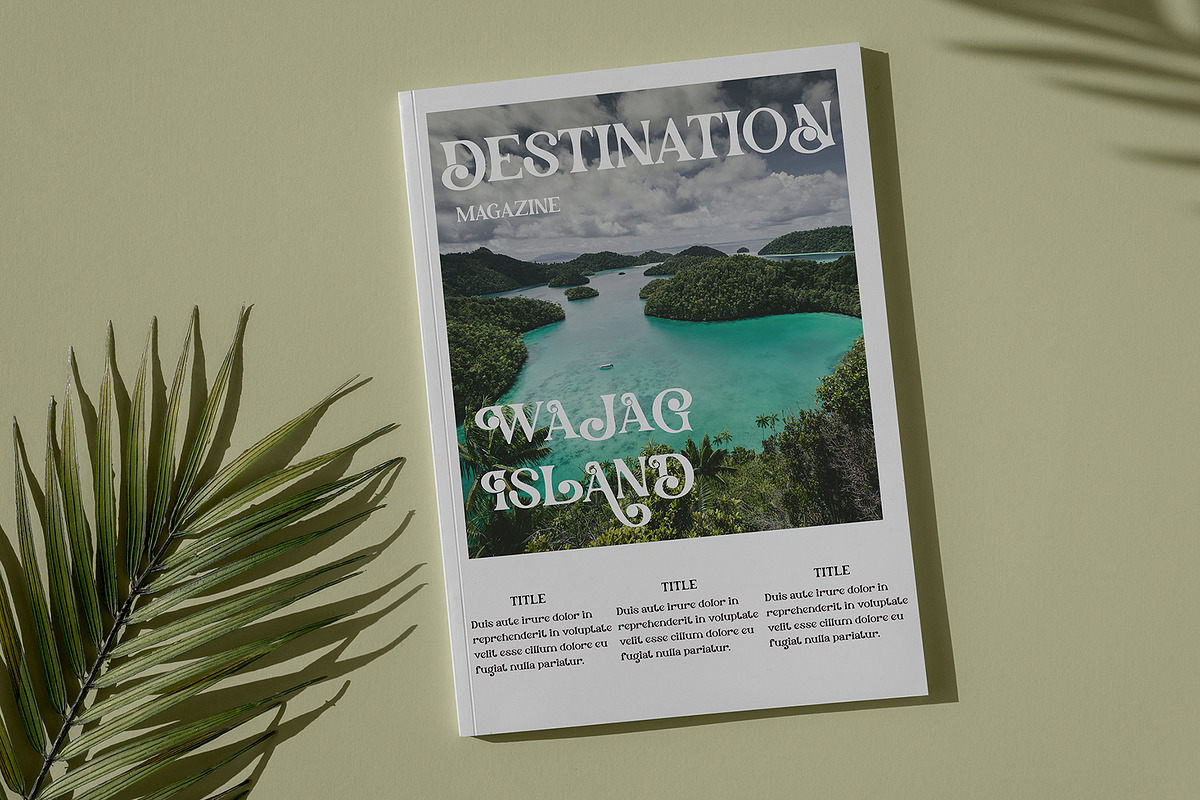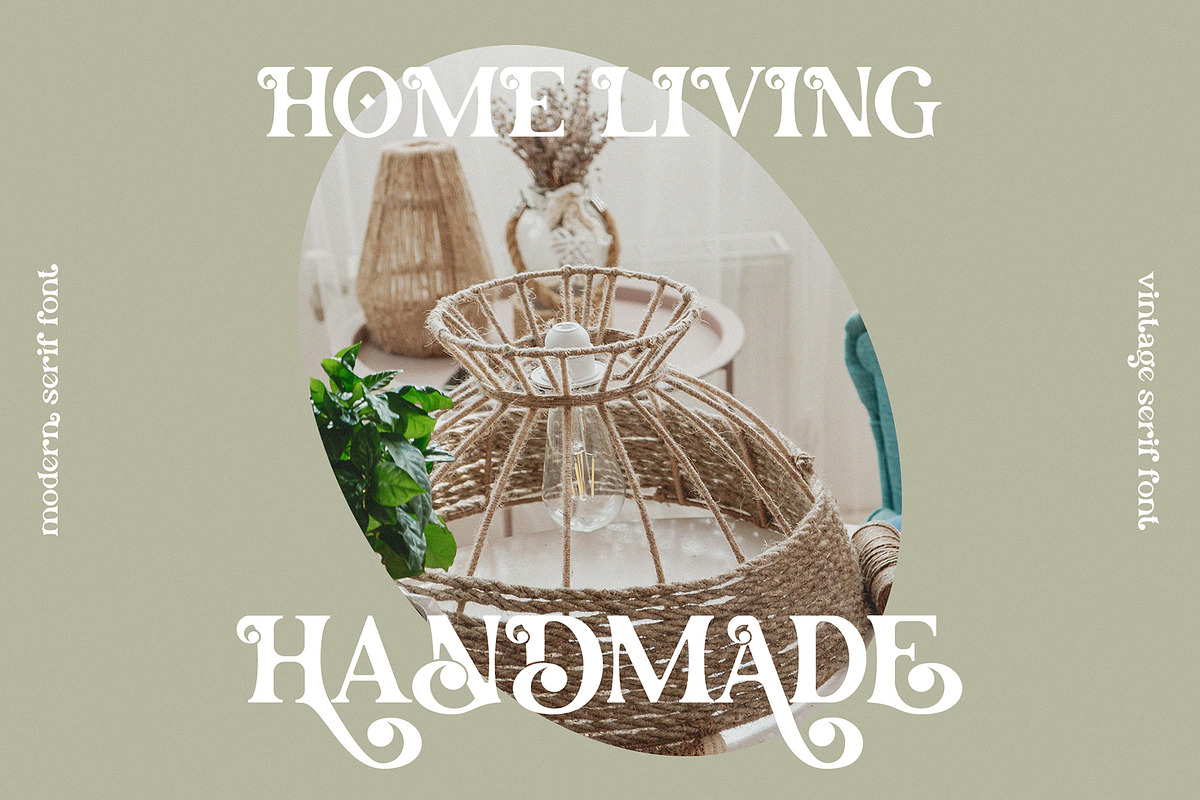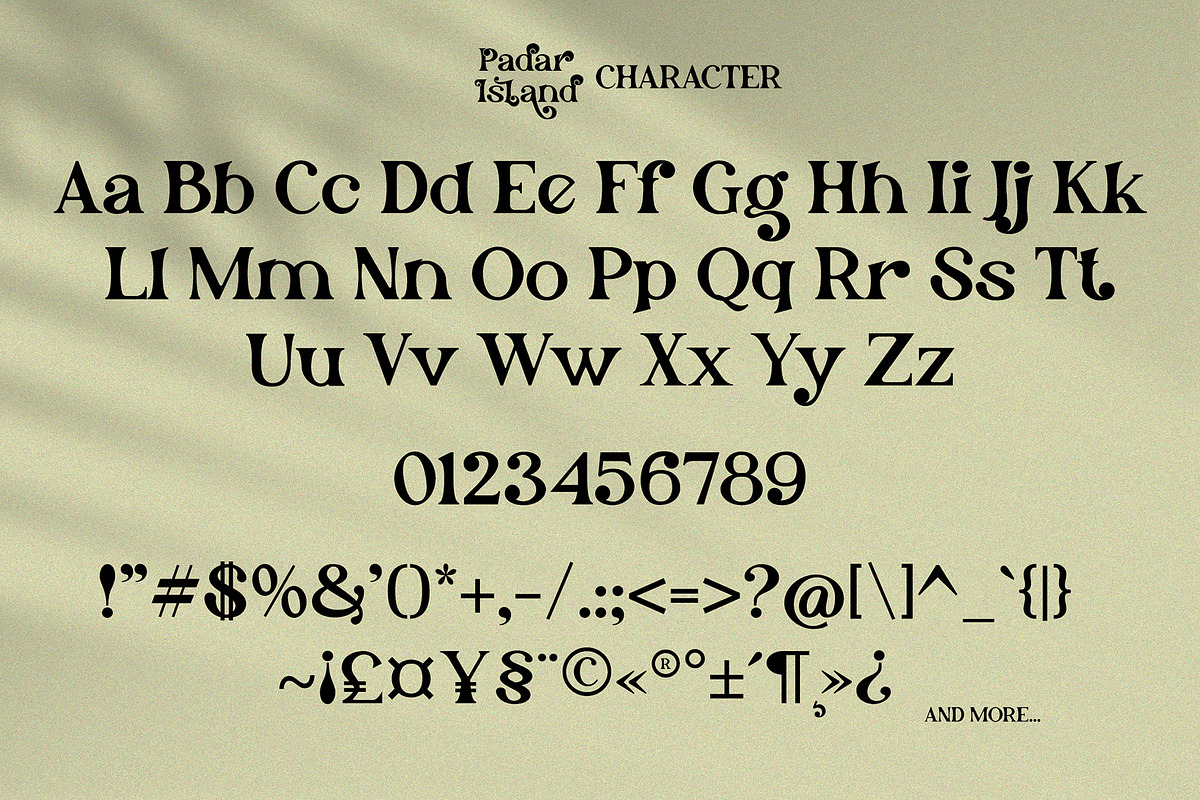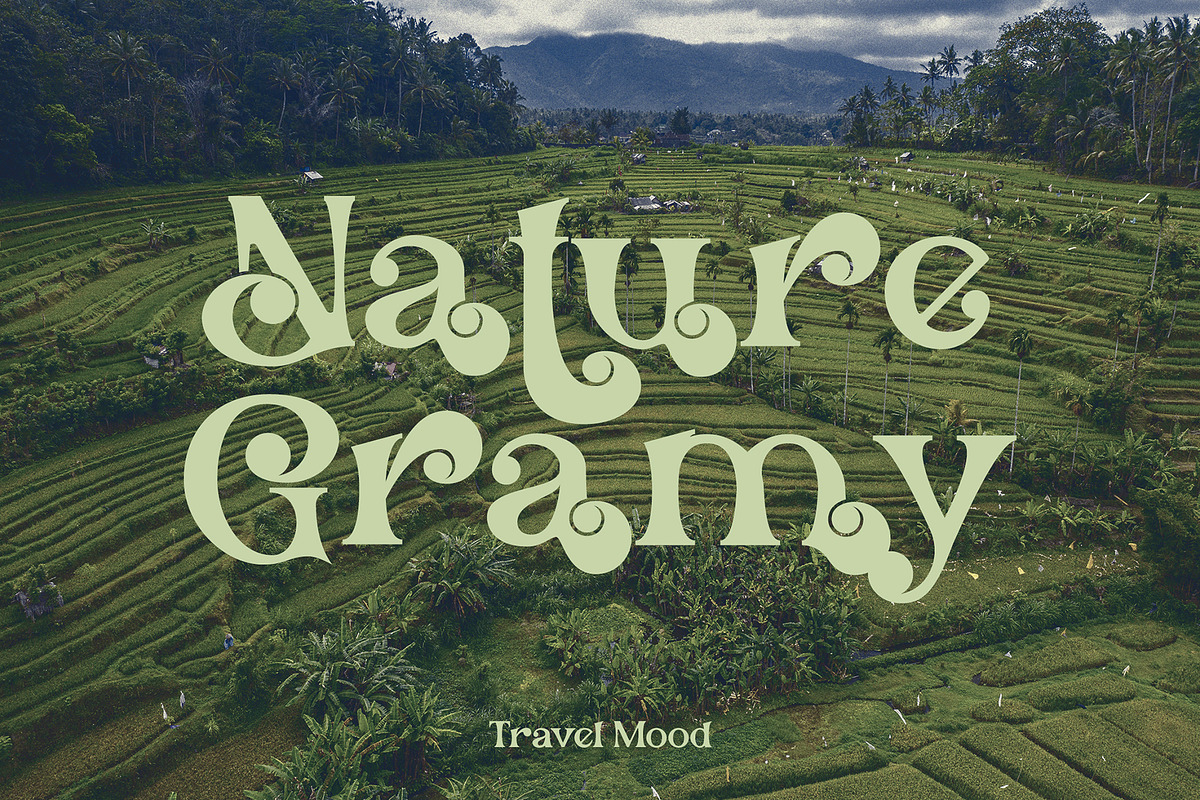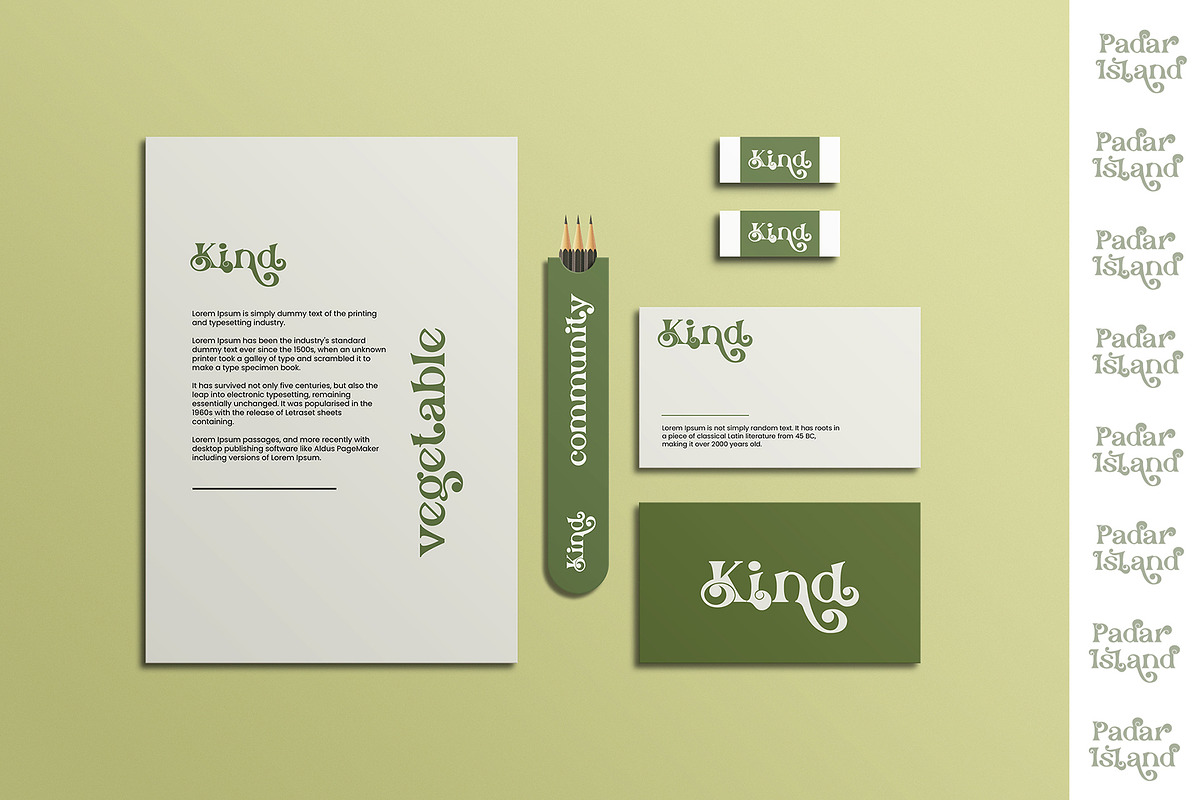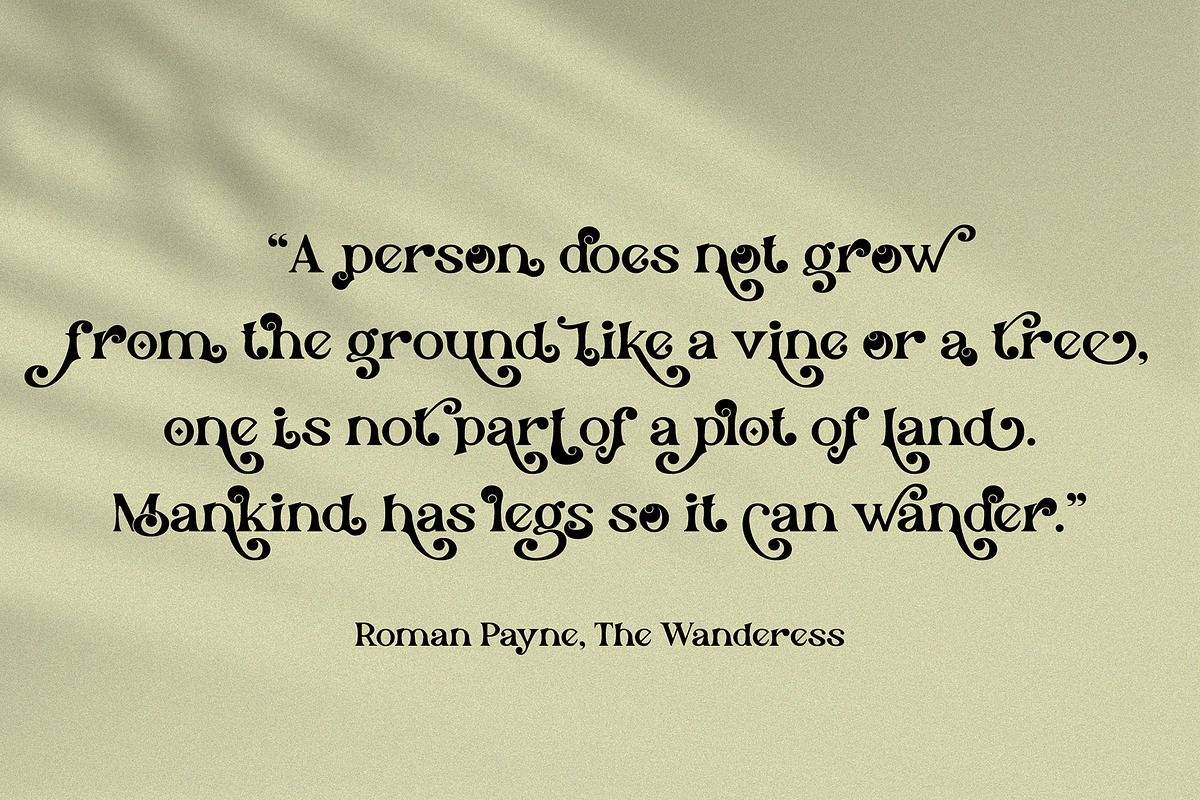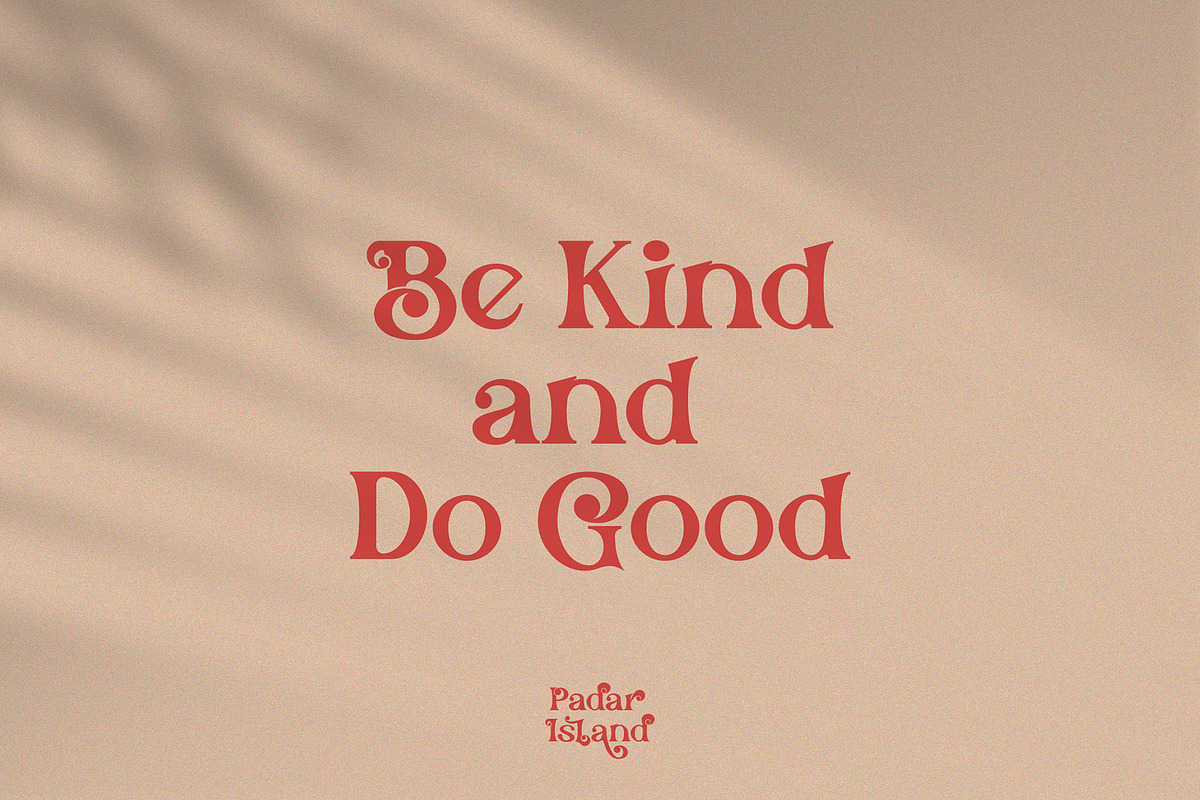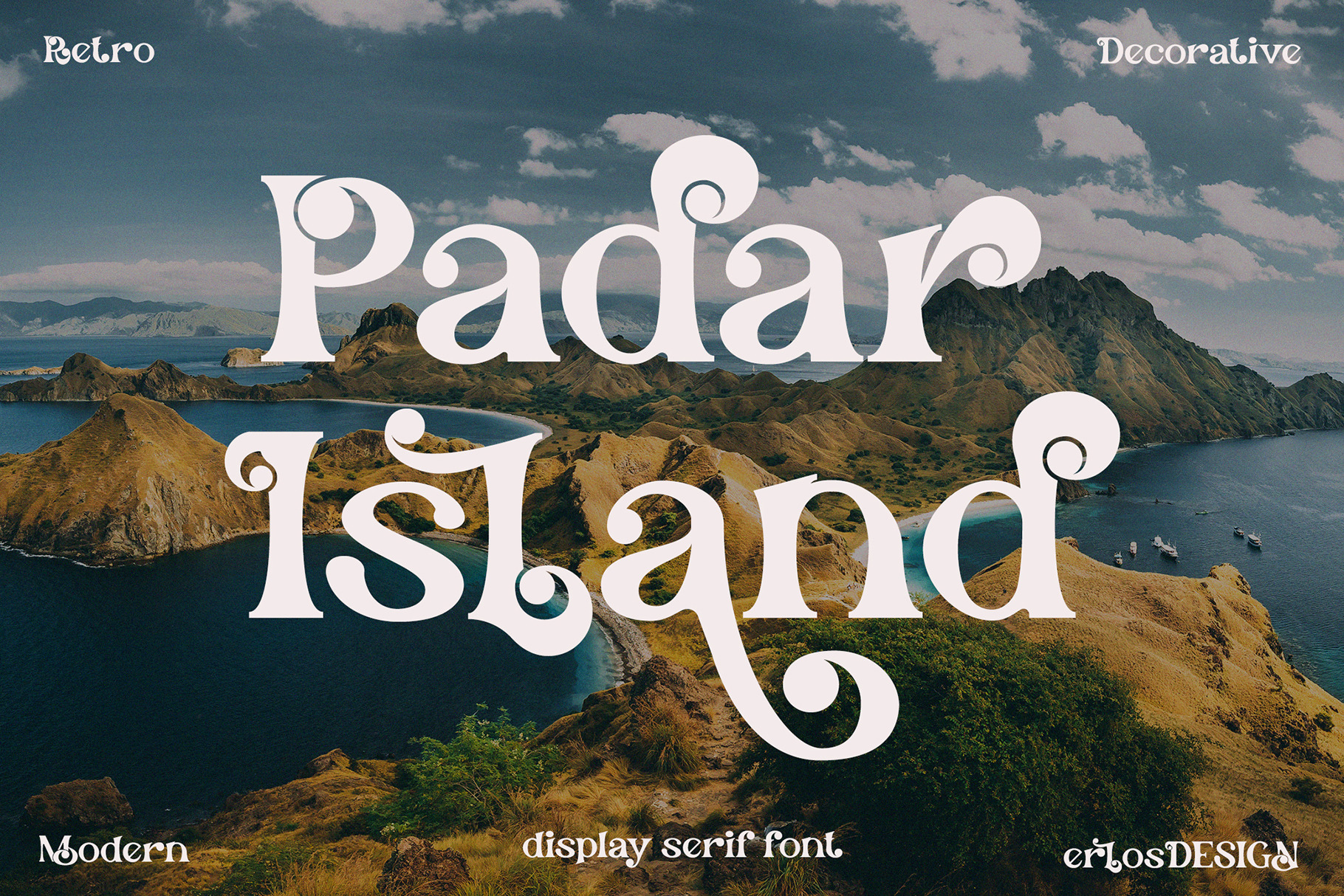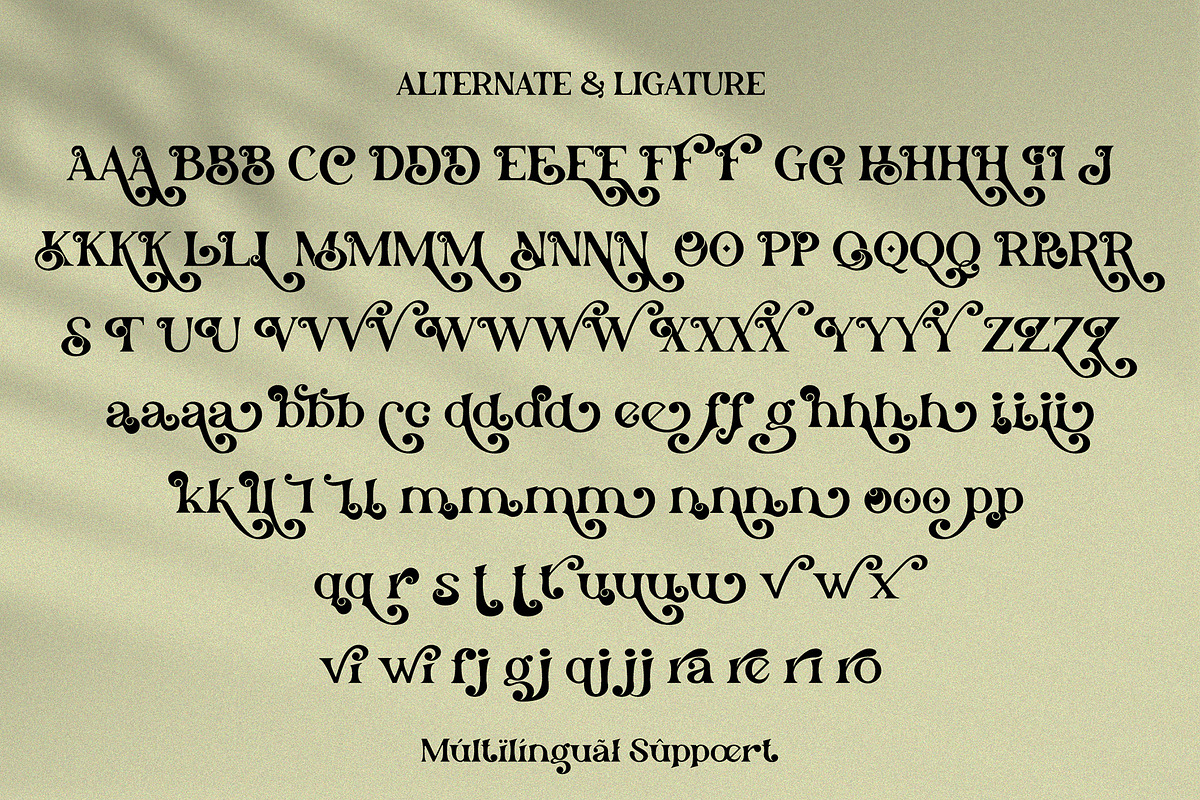
Padar Island - Display Serif Font
Padar Island - Display Serif Font by erlosDESIGN
Padar Island is a stylish and fun display font. Use it for any design project that require a charming appearance. Made with many alternative characters and ligatures. It is perfect for book covers, social media post, logos, business card, quotes and so much more. This font is PUA encoded which means you can access all of the amazing glyphs and ligatures with ease!